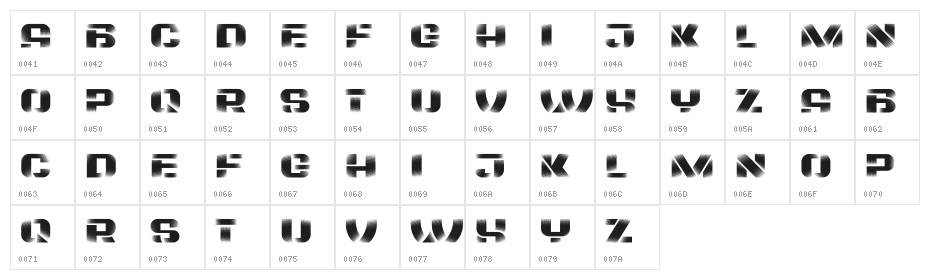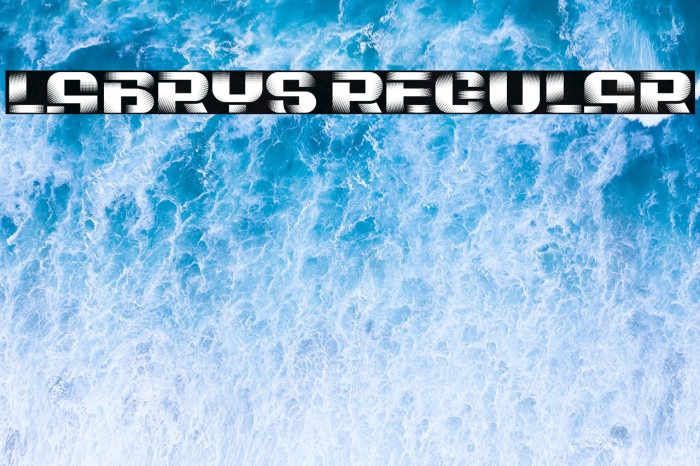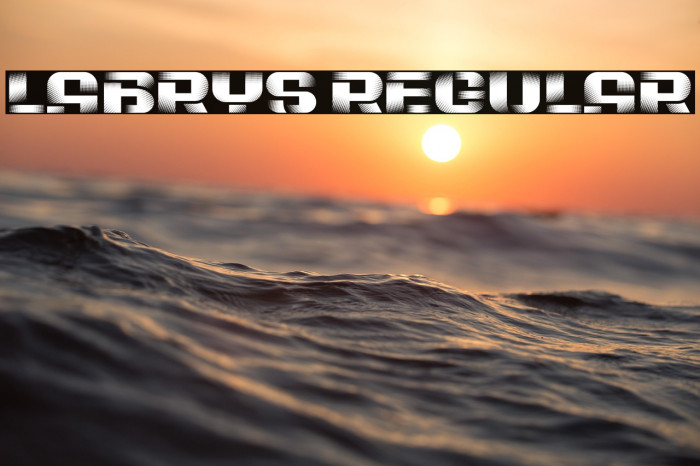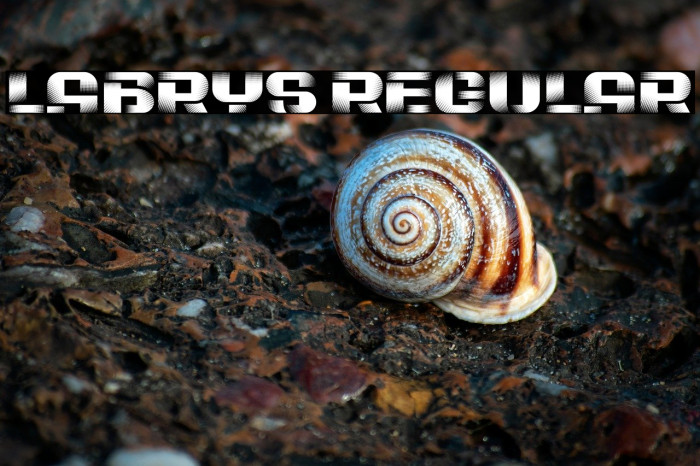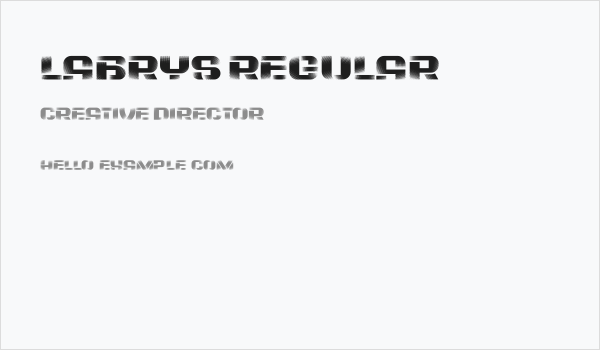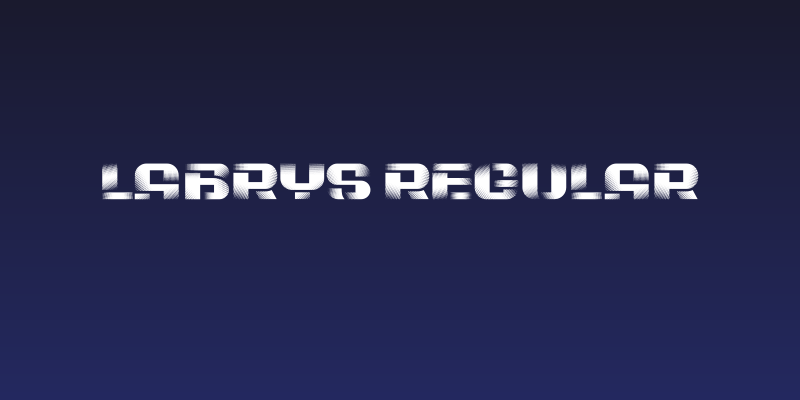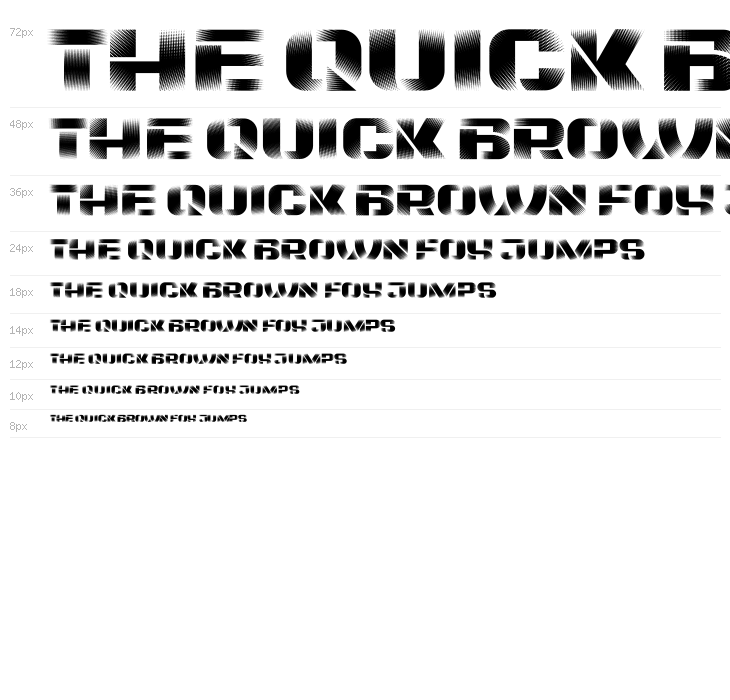
Labrys Regular Font
Labrys Regular Description
This font features a bold, futuristic design with a unique gradient effect that gives the impression of motion or speed. The characters are constructed with a series of horizontal lines that create a dynamic, textured appearance. The uppercase letters are particularly striking, with sharp angles and a strong presence. The overall look is modern and edgy, making it suitable for projects that require a standout, contemporary aesthetic. The font's distinct style is ideal for creative and innovative designs.
| Proposed Projects | Ideal for branding, posters, album covers, and any project needing a modern, edgy look. |